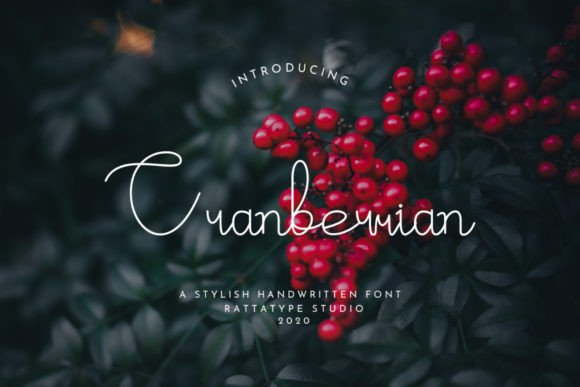
Unleash the elegance and sophistication of your design projects with Cranberrian, a breathtakingly beautiful script font family. Expertly crafted by masantocreative, Cranberrian is a visual masterpiece that exudes timeless charm and undeniable allure.
Step into a world of boundless creativity as you explore the intricate details and graceful curves of Cranberrian. This font is a true artist's dream, providing endless possibilities for expressing your unique style and vision. Whether you're a seasoned designer or just starting your creative journey, Cranberrian will elevate your work to new heights of sophistication.
Indulge in the versatility of Cranberrian, a font that effortlessly adapts to a myriad of design applications. Its delicate strokes and flowing lines bring a touch of elegance to photography, adding a romantic charm to wedding invitations and personal signatures. Unleash your inner fashionista and create captivating tag lines for your clothing brand, or design logos that radiate professionalism and luxury. The possibilities are endless with Cranberrian.
Experience the exquisite beauty of Cranberrian in the realm of food and beverage design. Elevate your menus and packaging with its timeless appeal, evoking a sense of culinary artistry and indulgence. Create marketing materials that tantalize the taste buds and leave a lasting impression on your customers.
With Cranberrian, your designs will radiate an aura of sophistication and elegance. Its luxurious appearance will captivate your audience, leaving them mesmerized by your creative brilliance. Embrace the power of Cranberrian and unlock a world of design opportunities, transforming your visions into stunning realities.